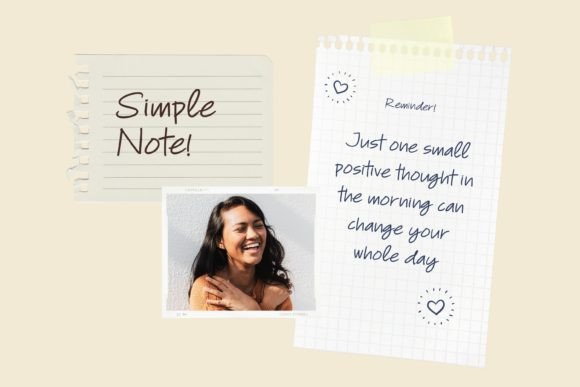
Simple Note Font
About Simple Note Font
**Simple Note Handwriting Font: Casual and Natural**
The “Simple Note” handwriting font is a casual typeface with a natural stroke that offers a laid-back and approachable look. This versatile font can be applied to a wide range of design projects to enhance their visual appeal. Here are some creative ways to make the most of the “Simple Note” font:
1. **Notes and Messages:** Use “Simple Note” to create handwritten-style notes, messages, and memos. Its natural strokes make your text feel personal and friendly.
2. **Product Descriptions:** Enhance product descriptions on websites, e-commerce platforms, and catalogs. The font’s casual style adds a touch of authenticity to your product descriptions.
3. **Headlines:** Design catchy and informal headlines for blog posts, articles, and website content. “Simple Note” captures attention and keeps readers engaged.
4. **Product Paragraphs:** Apply the font to paragraphs in product packaging, brochures, and promotional materials. It maintains readability while adding a handmade touch.
5. **Logos and Branding:** Create logos and branding elements that convey a relaxed and approachable brand personality. “Simple Note” can make your brand feel more relatable.
6. **Handwritten Signatures:** Generate digital handwritten signatures for documents, emails, and digital marketing materials. The font mimics the appearance of a handwritten signature.
7. **Social Media Posts:** Craft engaging and relatable social media posts, captions, and graphics using this font. It’s perfect for creating casual and authentic content.
8. **Personal Blogs:** Use “Simple Note” for personal blogs and journal entries. It adds an intimate and diary-like feel to your written content.
9. **Recipe Cards:** Design recipe cards, cooking instructions, and food labels with a handwritten touch. “Simple Note” suits culinary-related projects.
10. **Greeting Cards:** Create custom greeting cards for various occasions, such as birthdays, holidays, and special events. The font adds warmth and personality to your designs.
11. **Homemade Labels:** Apply the font to homemade labels for jams, candles, soaps, and other handcrafted products. It complements a homemade aesthetic.
12. **Inspirational Quotes:** Showcase inspirational quotes and sayings in a handwritten style. “Simple Note” can make motivational content feel more personal.
13. **DIY Crafts:** Incorporate the font into DIY and craft projects, including scrapbooking, cardmaking, and handmade gifts.
14. **Book Covers:** Design book covers with a personal touch. “Simple Note” can be used for author names, book titles, and other textual elements.
15. **Chalkboard Art:** Create digital or printed chalkboard-style artwork and designs. The font adds a chalk-like texture for a rustic look.
16. **Printed Materials:** Apply the font to printed materials such as brochures, flyers, posters, and newsletters for a friendly and down-to-earth vibe.
“Simple Note” is a versatile handwriting font that combines the convenience of digital type with the personal touch of handwritten text. Its natural strokes, informal style, and readability make it an excellent choice for a wide range of projects where a casual and authentic look is desired. Whether you’re designing for print or digital media, “Simple Note” can help you connect with your audience on a more personal level.